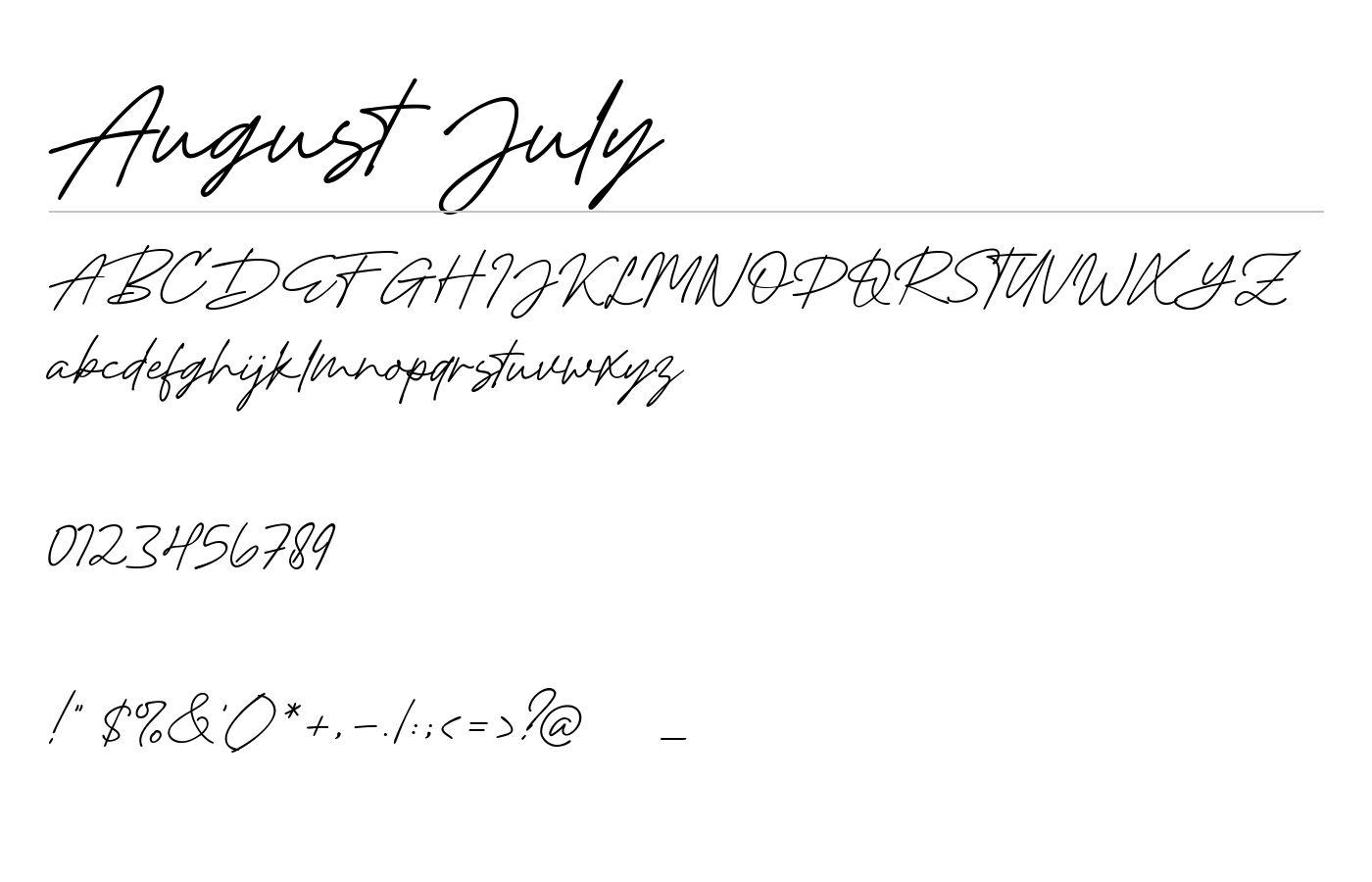
August July is a delicate, modern script font characterized by its thin, flowing strokes and elegant handwritten style. Its light weight and airy letterforms give it a casual yet refined look, making it perfect for personal branding, invitations, and stylish editorial use where a touch of sophistication and warmth is desired.
August July Font
About August July Font